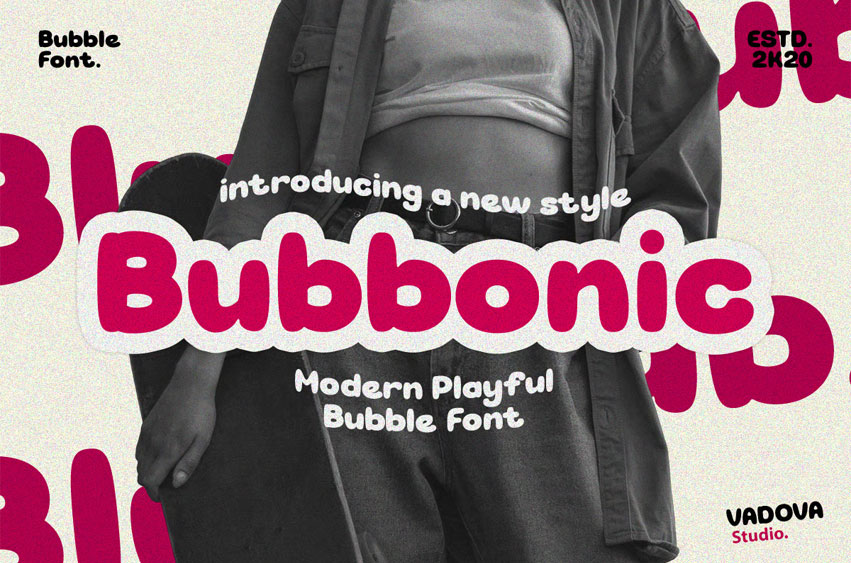
Bubbonic Font is a modern playful bubble font with bold rounded shapes and soft curves that create a fun and friendly visual tone. The letterforms are chunky, smooth, and expressive, giving the font a cheerful character that instantly stands out in display use. Its bubbly structure delivers a casual yet eye-catching style suitable for creative and youthful compositions. Bubbonic brings a lively, soft, and contemporary feel to typography-focused designs.
Bubbonic is perfect for kids projects, playful branding, cute logos, packaging design, sticker designs, social media graphics, posters, fun headlines, event visuals, creative merchandise, casual branding, educational materials, cartoons, and modern graphic layouts that require a soft and joyful bubble-style typeface.